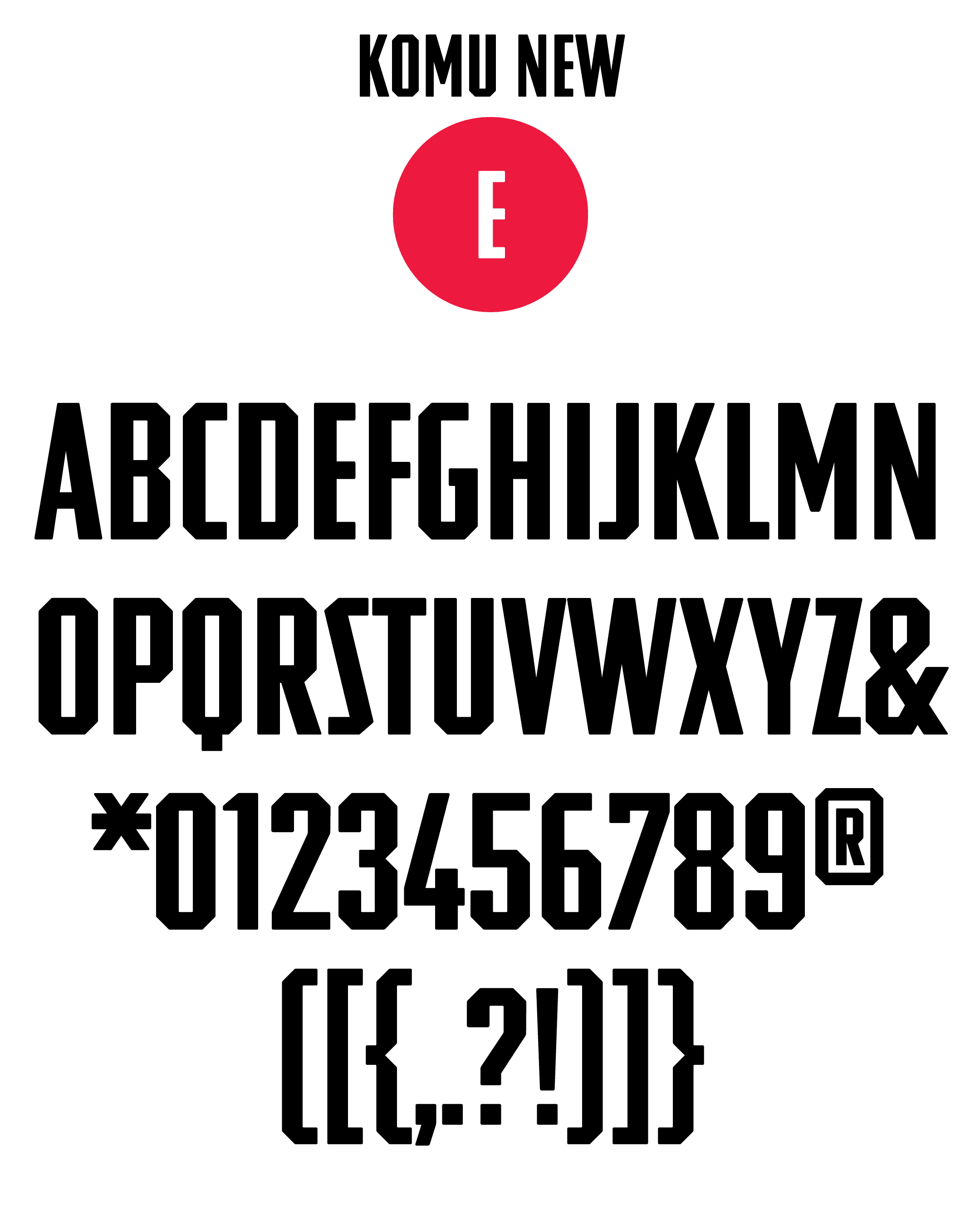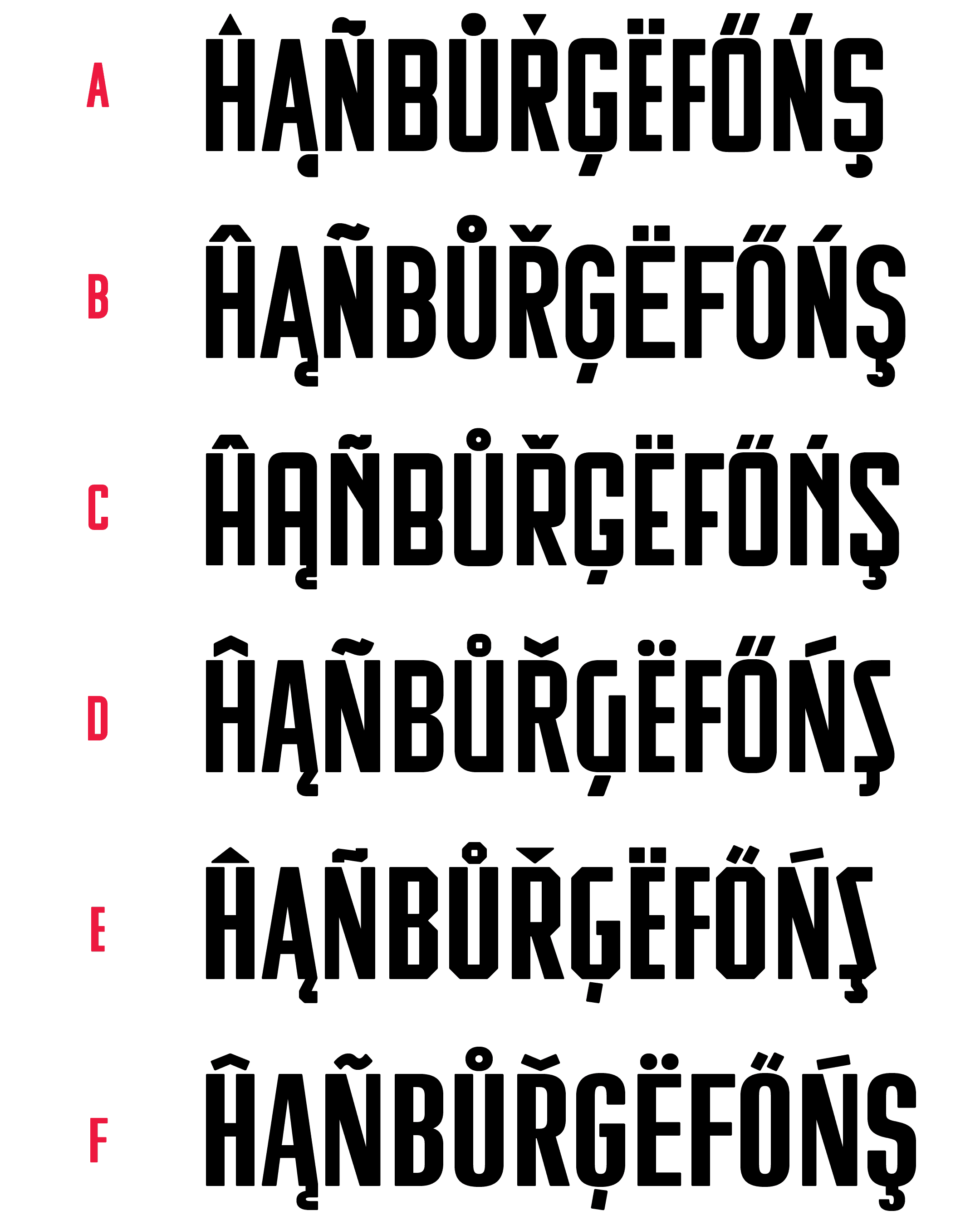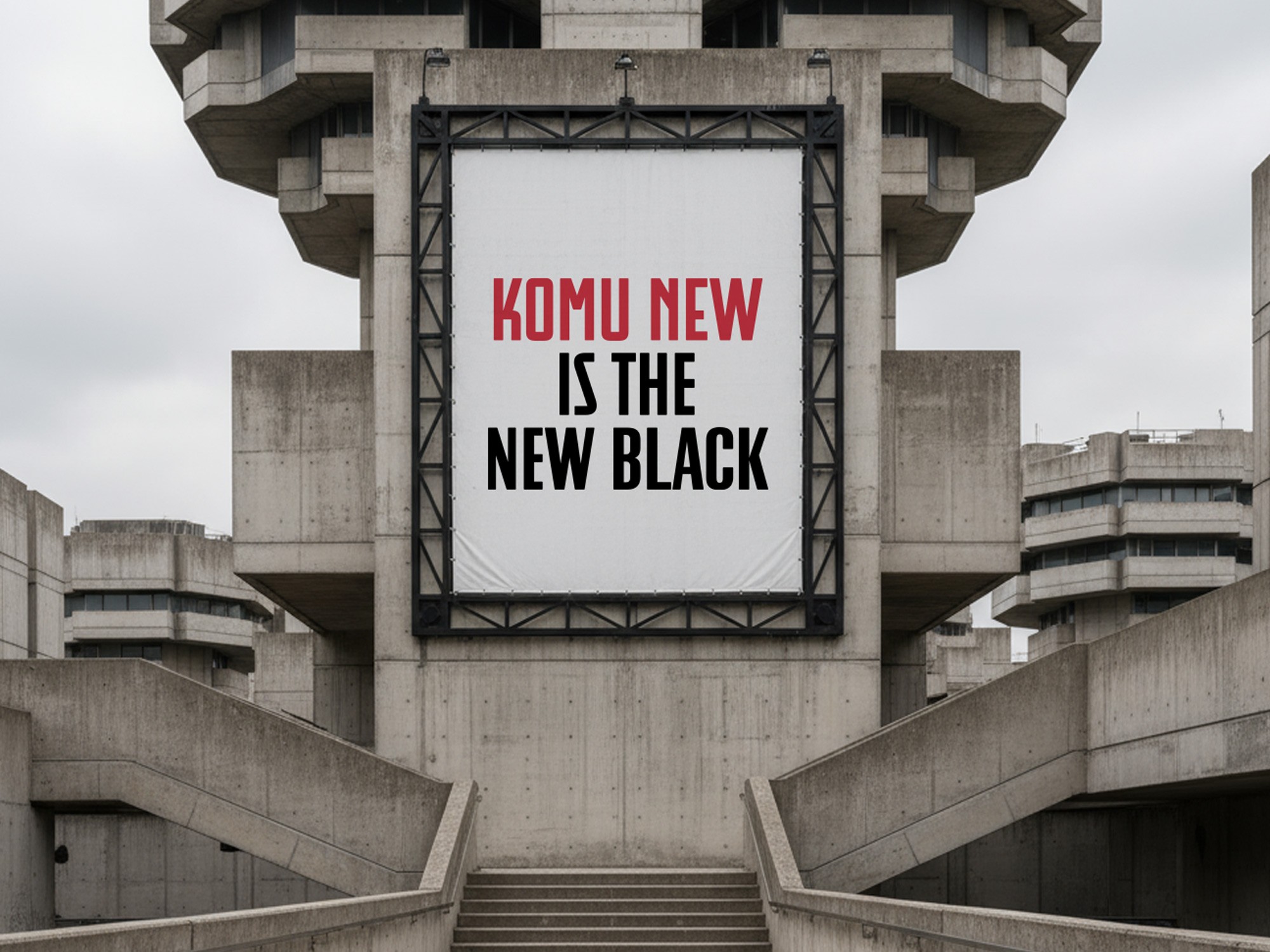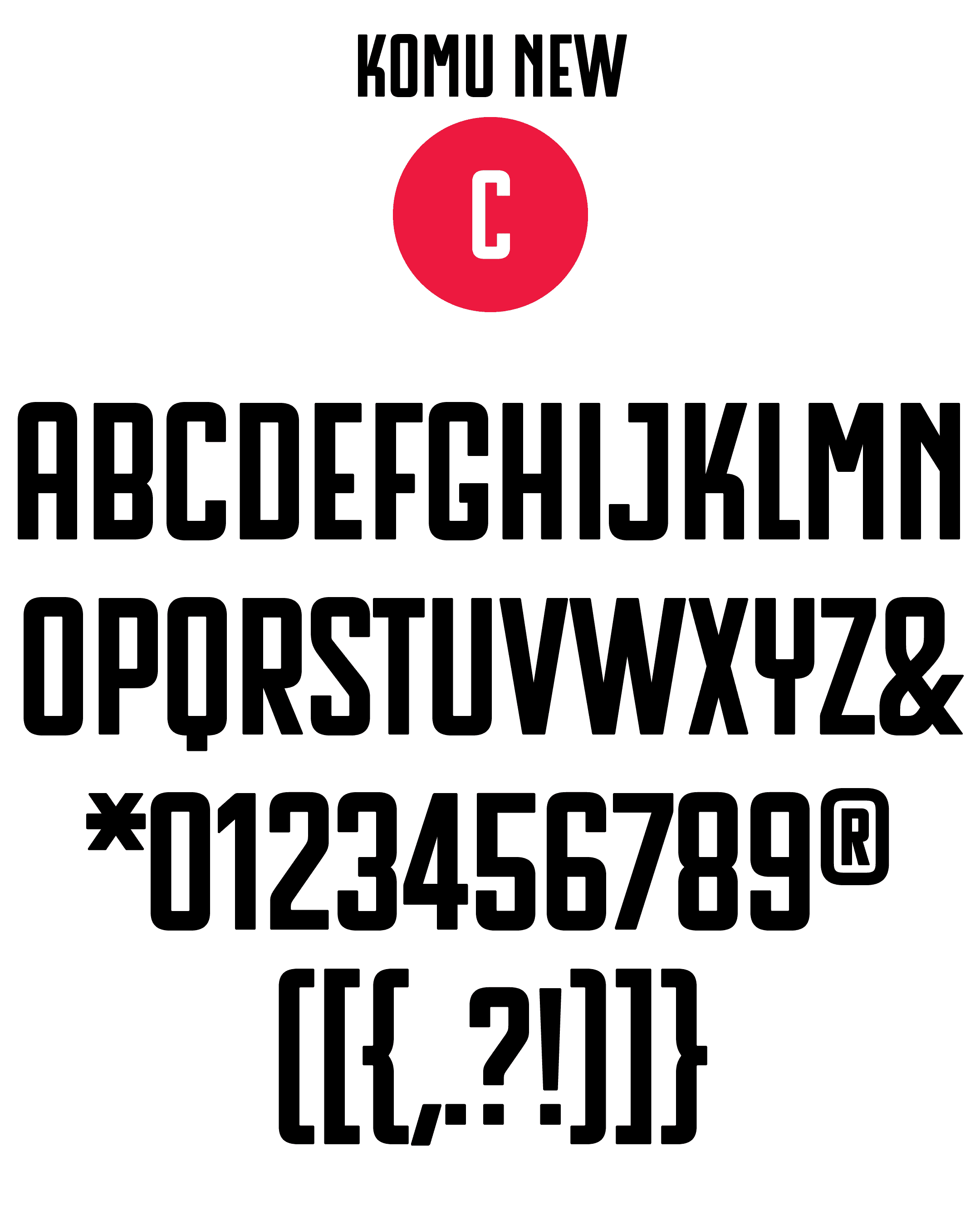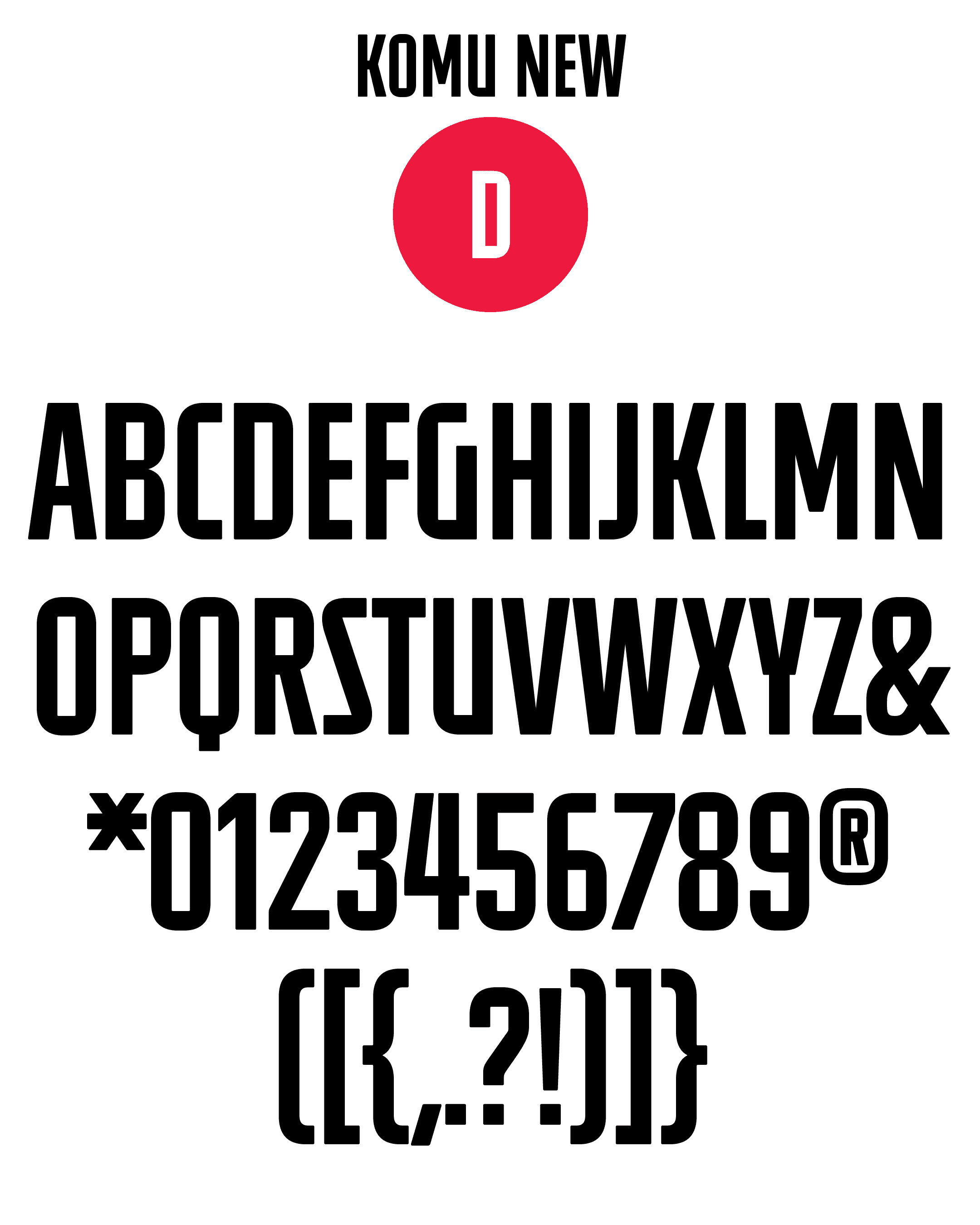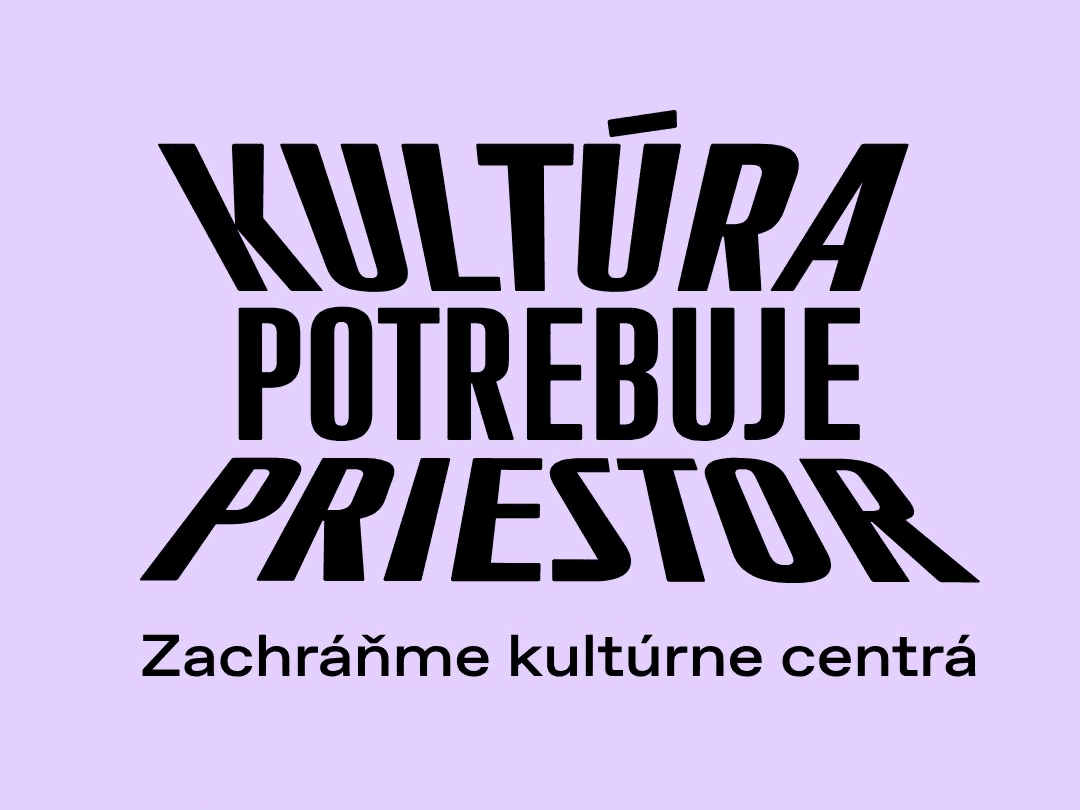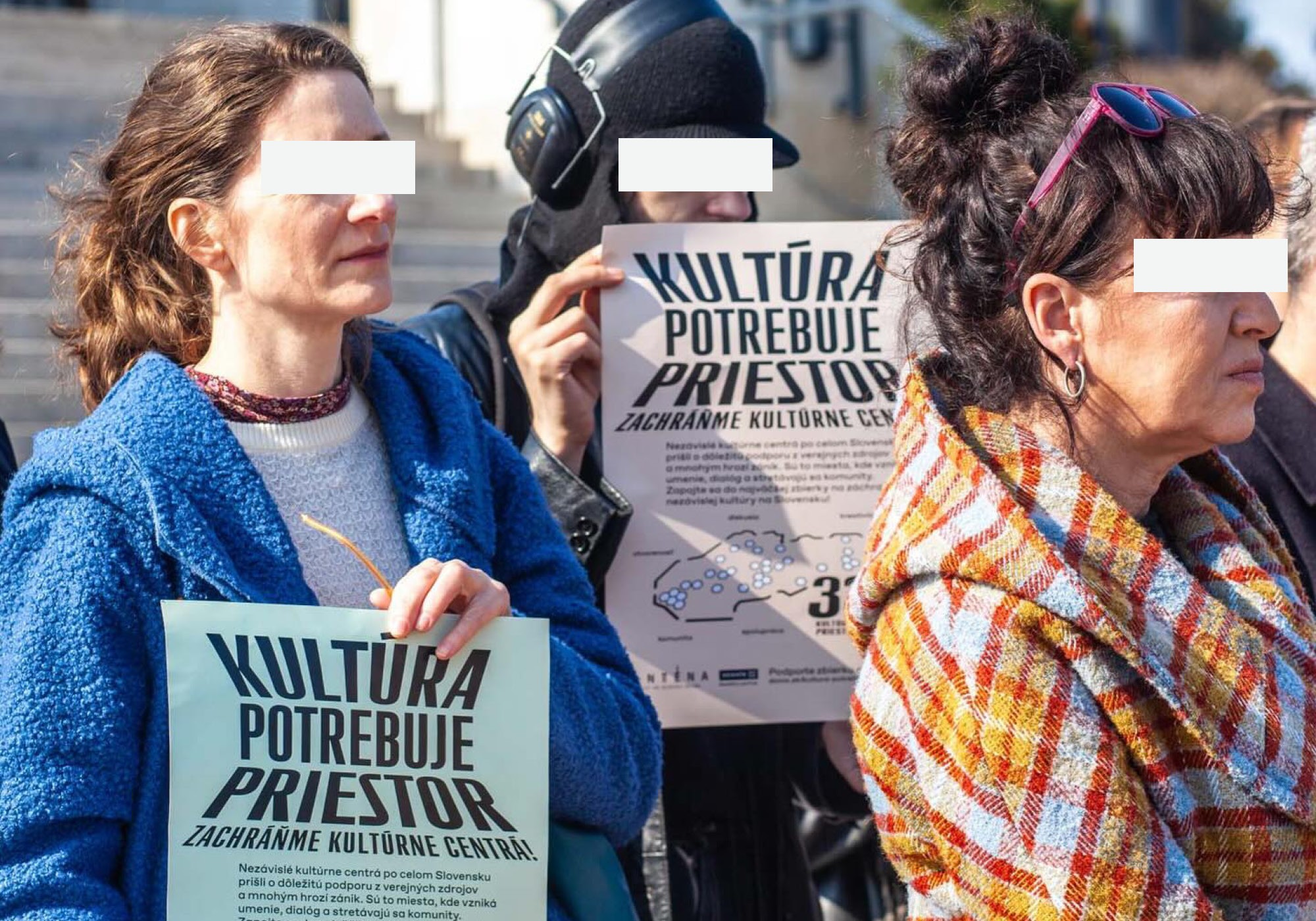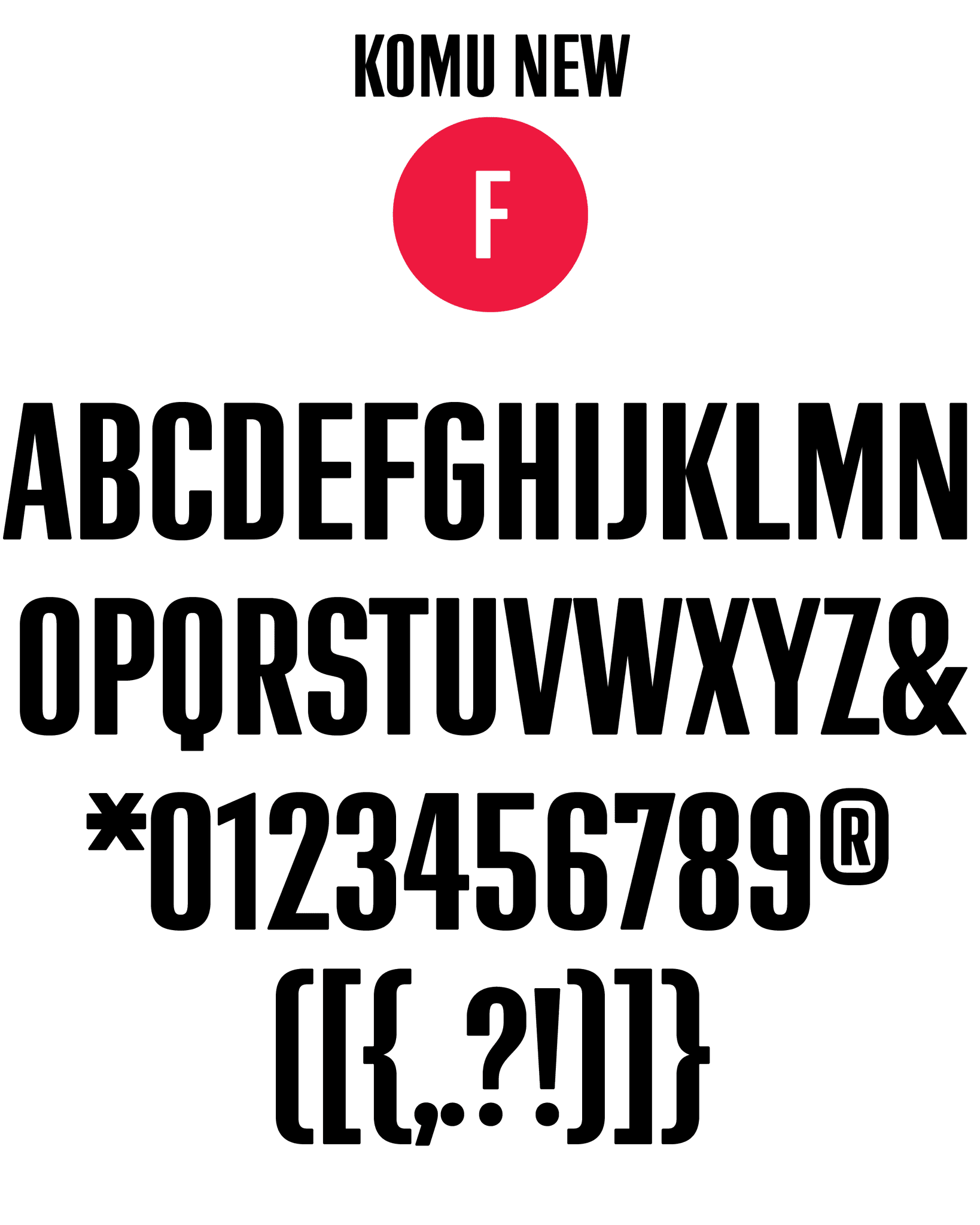
Reinterpretation of
socialist grotesque typefaces
• Komu New Typeface in use for the "Kultúra potrebuje priestor" (Culture Needs Space) protest logo
• Komu New Typeface in use for the "Betónová džungla" (Concrete Jungle) mockup
Sources & Inspiration
ABOUT Komu NEW
Reinterpretation
of socialist grotesque typefaces
The Komu typefaces are based on bold, socialist modernist grotesques. Typography during this era served as a tool of propaganda. Slogans and propaganda texts were often written in all caps to convey authority. These slogans frequently appeared on banners with wide tracking.
The Komu New type family is a loose continuation of the noticeboard typefaces Komu A and Komu B. They share the same proportions and draw inspiration from various sources of grotesque type designs from that period. These type styles appeared everywhere – on posters, in shop windows, magazines, and banners. They also took various technological forms — plotter prints, screen printing, or hand-painted by sign painter on banners or metal plates in factories.
I combined these four typefaces into a single family because they are visually similar, yet differ in many subtle ways. They vary in middle strokes position, shape rounding, character widths, and proportions. I merged selected details from multiple sources into each typeface to ensure they work well together and complement one another. Each font also features its own distinctive diacritics.
Category
Sans-serif, Display, Capitals Only
Styles
4 (C, D, E, F)